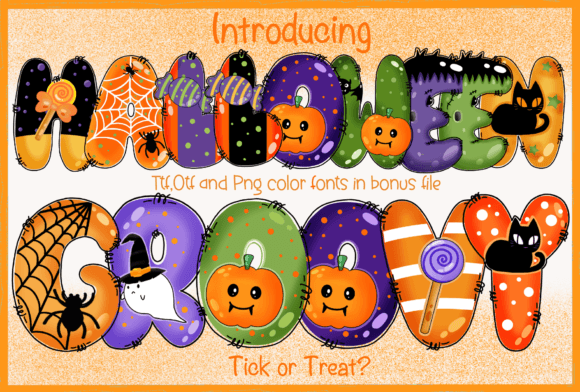
Introducing Halloween Groovy Font - the ultimate choice for all your Halloween design needs! Created by the talented Itme_digitalart, this font is here to add a spooktacular touch to your projects. Get ready to embrace the spirit of Halloween like never before!
With its decorative style, Halloween Groovy Font is the perfect companion for any Halloween-themed design. This font is dripping with personality and brings an element of fun and excitement to your creations. Whether you're designing invitations, postcards, posters, or even headings for a Halloween event, this font will make your text come alive with a bewitching charm.
What sets Halloween Groovy Font apart is its ability to capture the essence of Halloween in a single typeface. Its quirky and playful nature instantly transports you to a world of jack-o'-lanterns, witches, and trick-or-treating. The unique and eye-catching characters will captivate your audience and leave a lasting impression.
Not only does Halloween Groovy Font deliver on style, but it also offers unparalleled versatility. Its wide range of applications makes it a must-have for designers and enthusiasts alike. Whether you're working on digital projects, print materials, or even merchandise, this font will elevate your designs to new heights.
Immerse yourself in the spooky season with Halloween Groovy Font. Let your creativity run wild as you explore the countless possibilities it has to offer. Whether you're a professional designer or just someone who loves Halloween, this font will become your go-to choice for all your hauntingly beautiful creations.